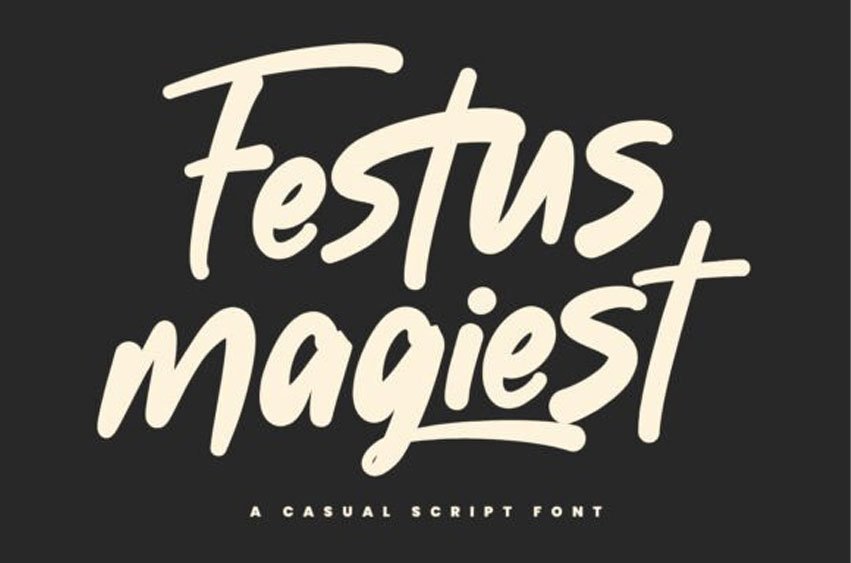
Festus Magiest Font is a dynamic and casual script font that exudes a bold yet friendly personality. With smooth curves and confident brush strokes, this typeface is perfect for branding, social media graphics, packaging, and anything that needs a stylish, handcrafted touch.
Its clean legibility paired with a playful vibe makes it a versatile go-to for creatives aiming to make a modern statement.